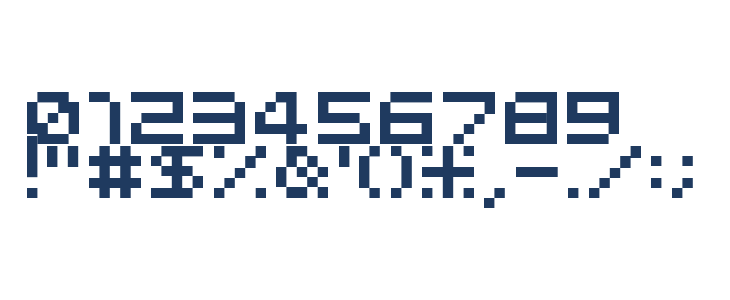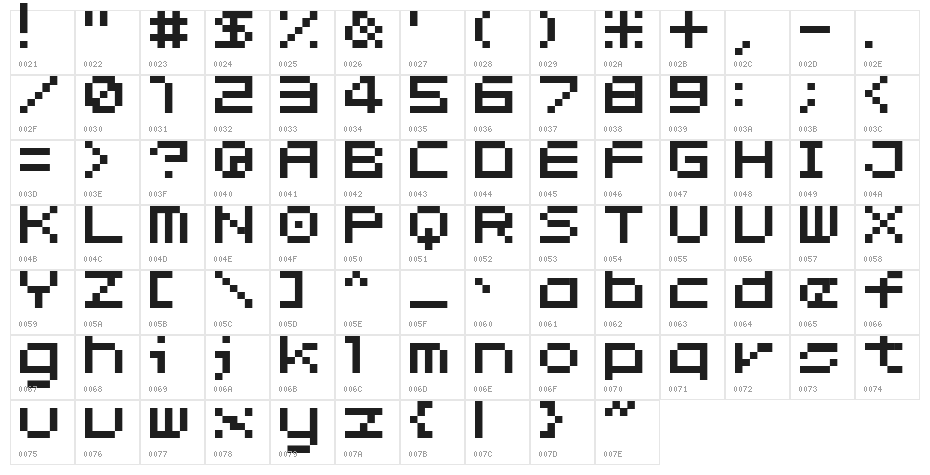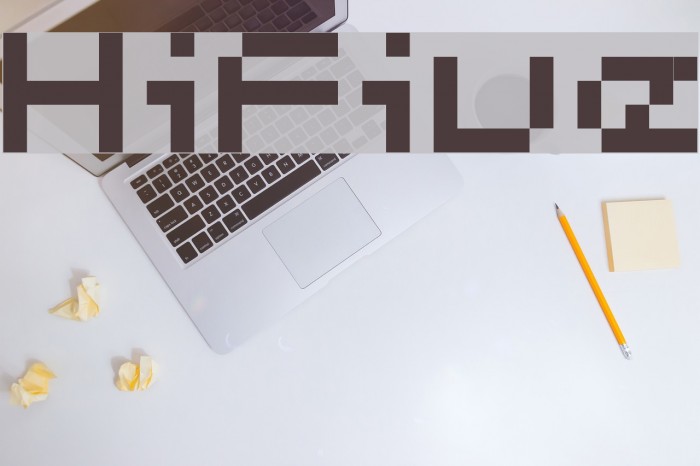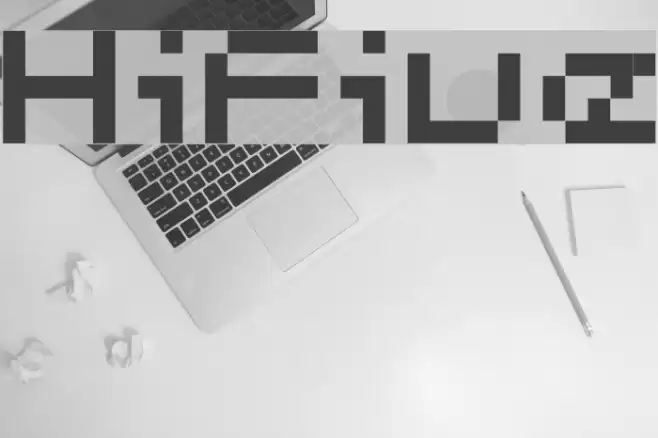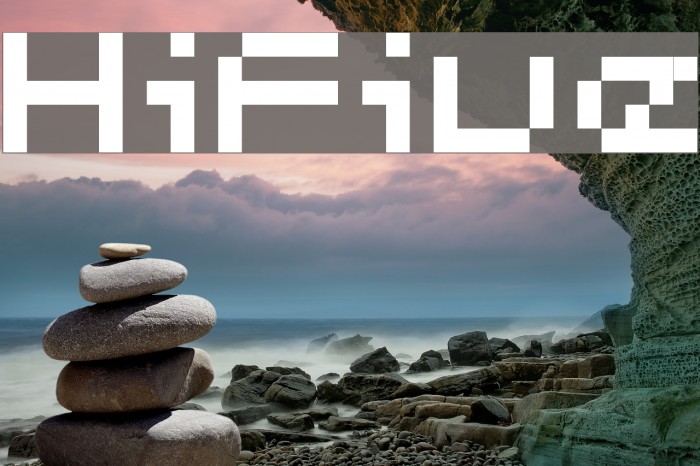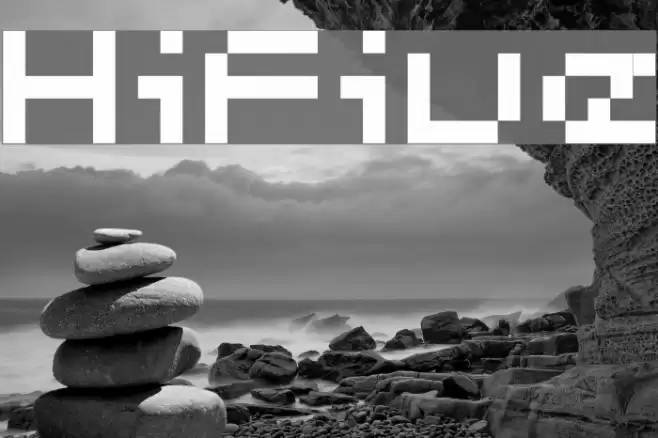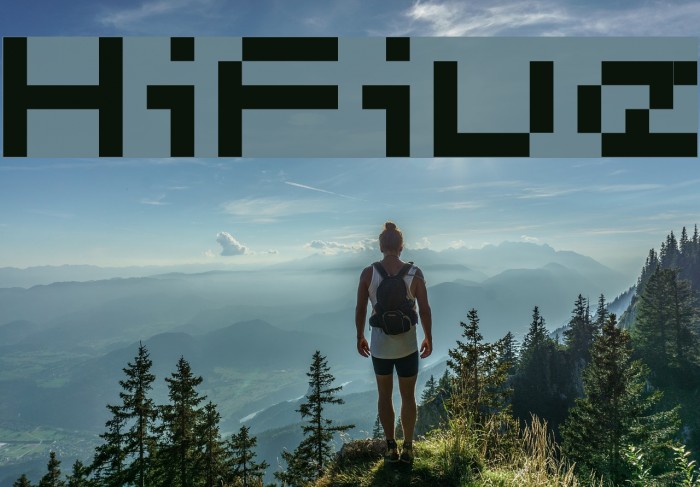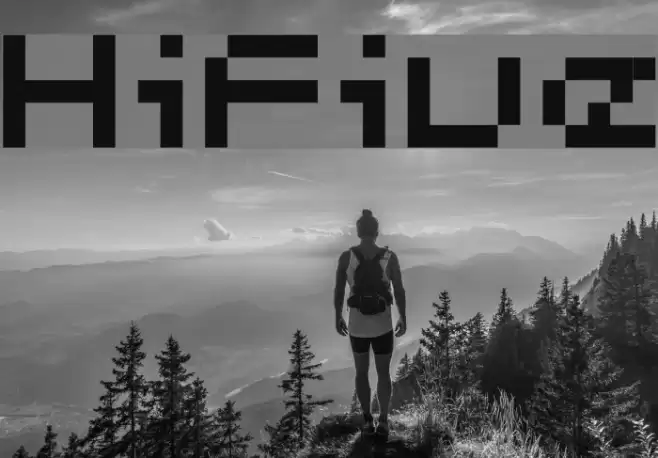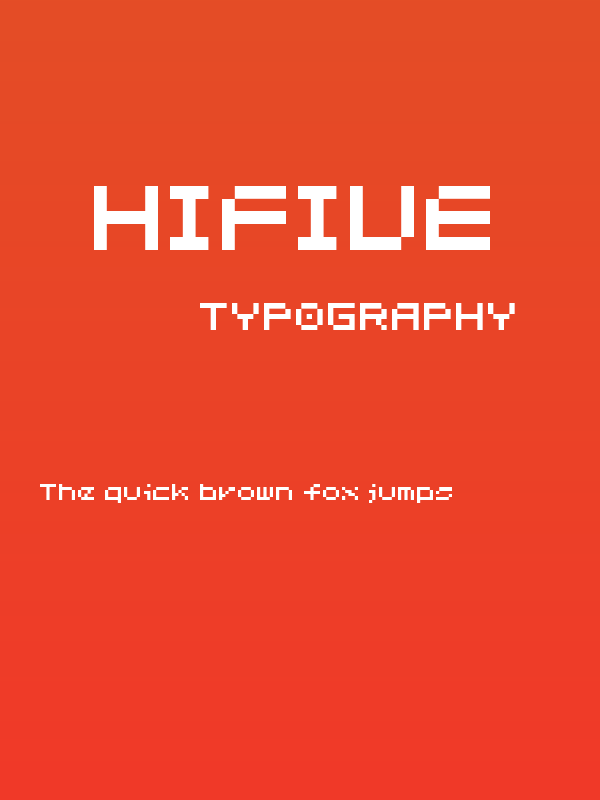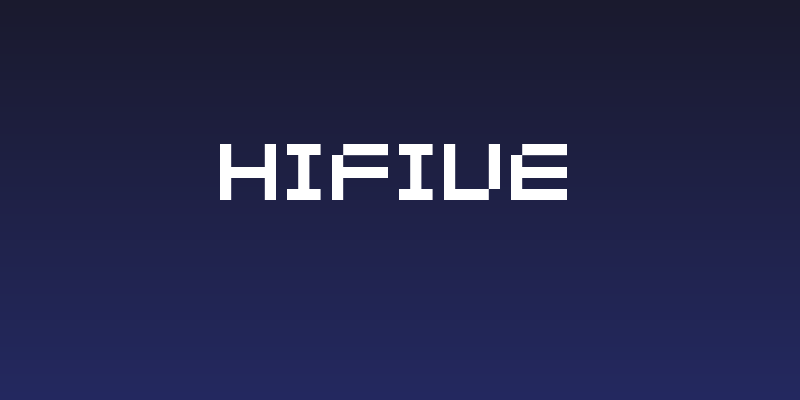
HiFive Font
HiFive Description
This font features a pixelated, blocky design reminiscent of early digital displays and retro video games. Each character is constructed with a uniform grid-like pattern, giving it a distinctly digital and geometric appearance. The uppercase and lowercase letters maintain a consistent height, contributing to a cohesive and structured look. The numerals and special characters follow the same pixelated style, ensuring uniformity across all glyphs. This font's design is straightforward, with no curves or embellishments, emphasizing its digital and minimalist aesthetic.
| Use Case | Headlines, Logos, Digital Art |
| Proposed Projects | Ideal for retro-themed designs, video game graphics, digital art projects, and any creative work that requires a nostalgic digital feel. |